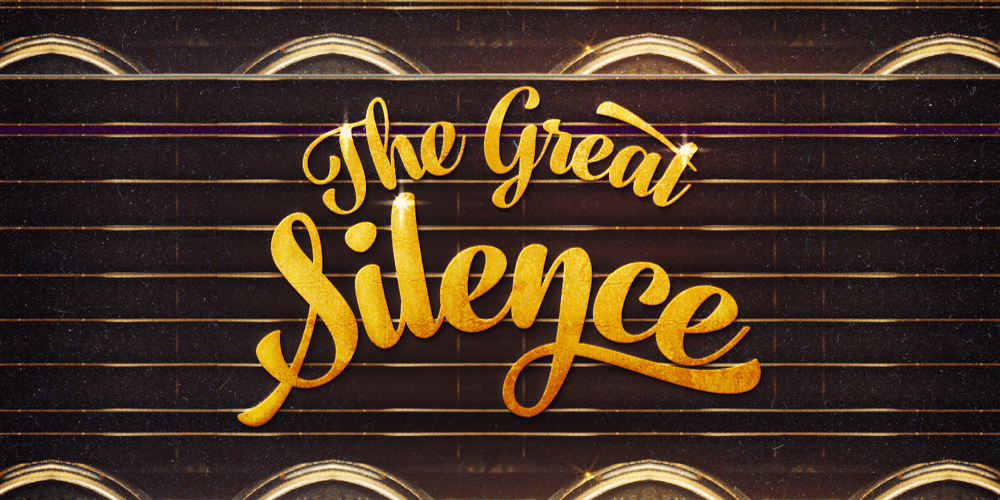
Fragola
Fragola Font Family was designed by Emil Karl Bertell and published by Fenotype. Fragola contains 10 styles and family package options. Fragola is a bold and groovy script family with plenty of OpenType features and extra swashes. Combine Swash, Stylistic or Titling Alternates or manually select from even more alternates in any OpenType savvy program to create groovy headlines and spice up your design with Fragola Extras. Fragola Demo is a free version of Fragola Printed with some extra ink drops spilled in the mix. For the absolutely best price purchase the whole family pack!